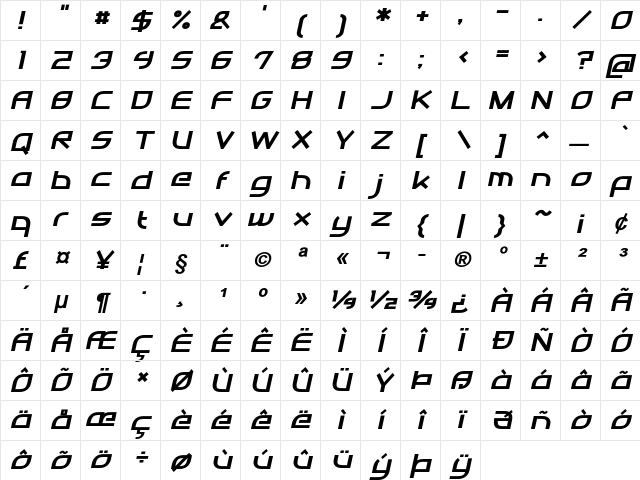
Space Odyssey Bold Italic Free Font
Space Odyssey Bold Italic
Space Odyssey Family
Design Context for Space Odyssey
Space Odyssey is a composed and adaptable typeface that performs quietly and consistently across a wide range of design contexts. The slanted form adds forward momentum and visual energy. Its bold stroke weight gives it real presence on the page.